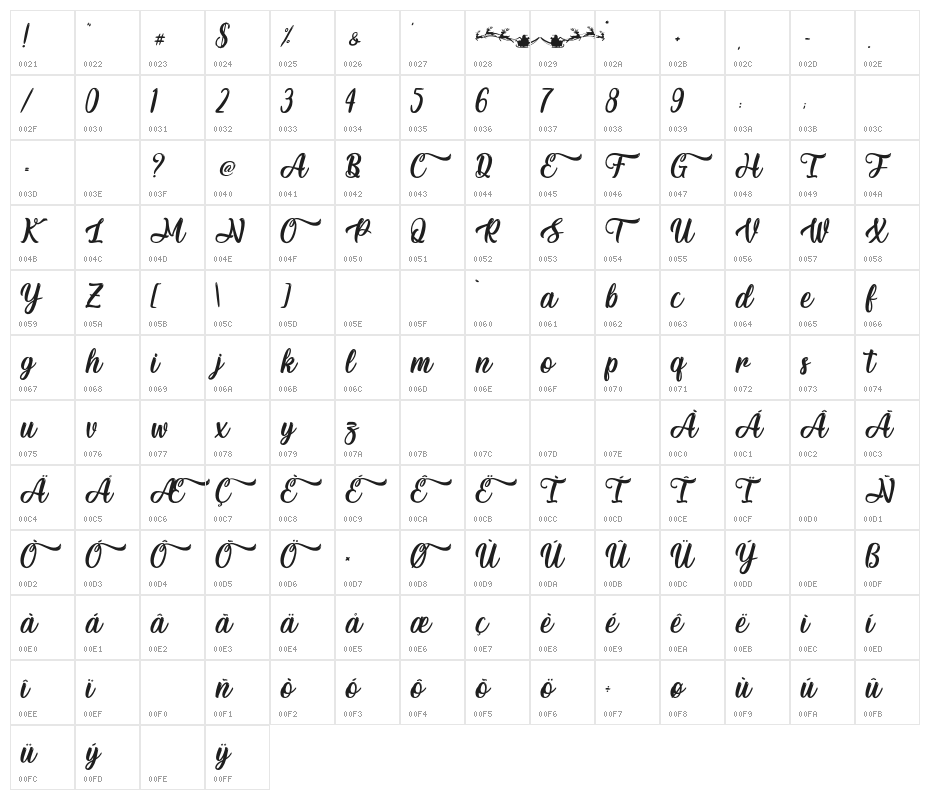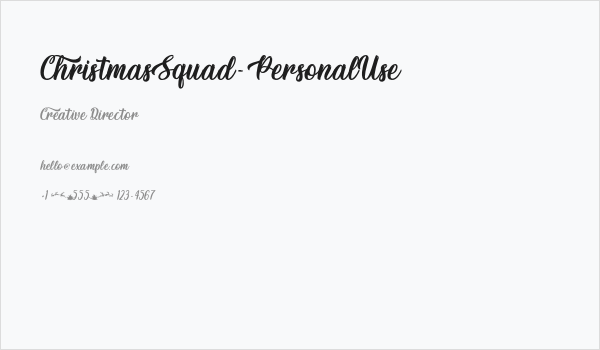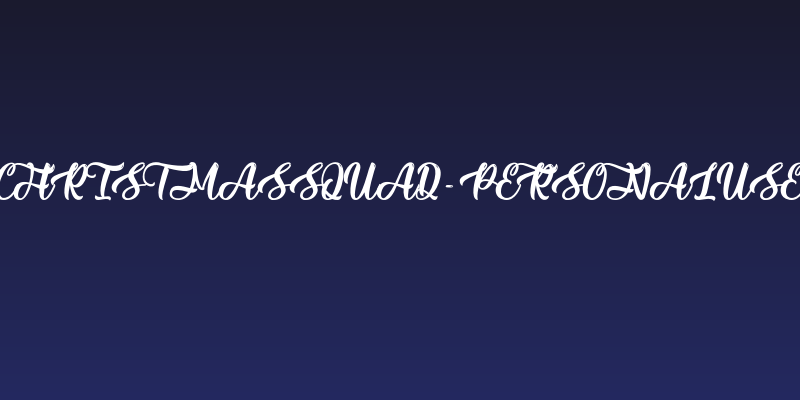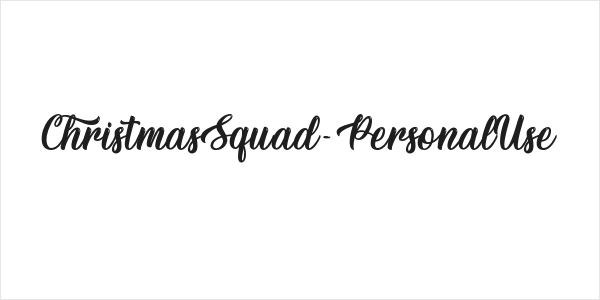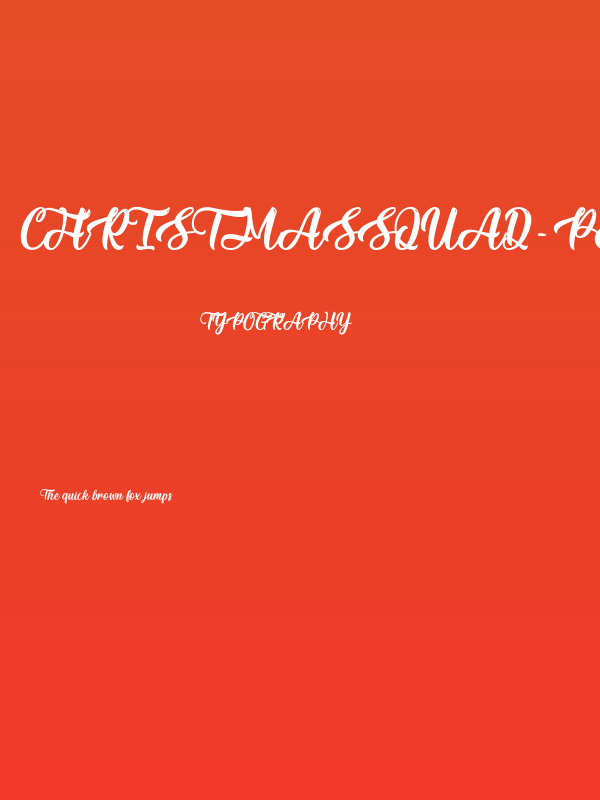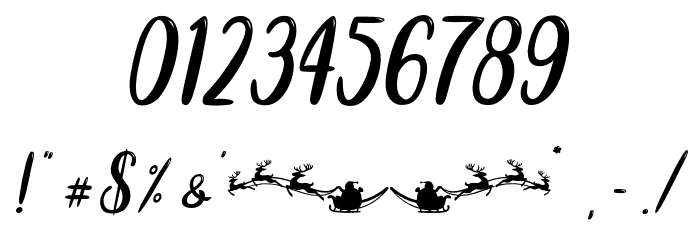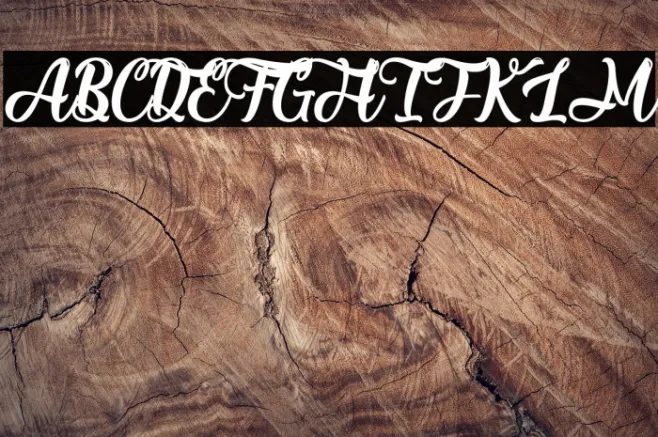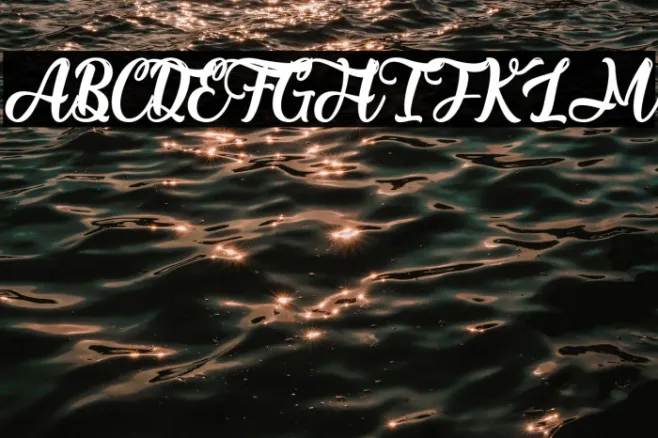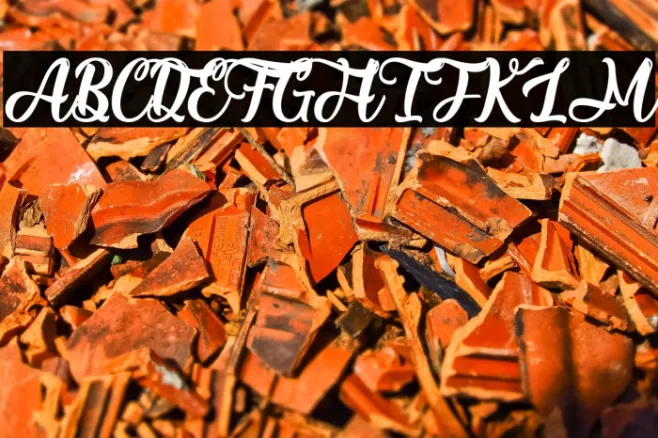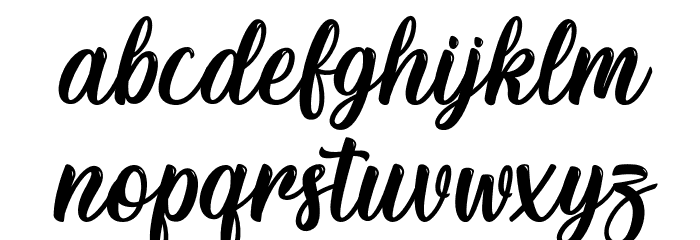
ChristmasSquad-PersonalUse Font
ChristmasSquad-PersonalUse Description
This font features a playful and festive script style, characterized by its flowing, cursive letters that evoke a sense of holiday cheer. The uppercase letters are bold and dynamic, with elegant loops and swirls that add a touch of whimsy. The lowercase letters maintain a consistent style, with smooth curves and a slightly exaggerated slant that enhances the overall festive feel. The numerals are clear and easy to read, while the special characters include charming holiday-themed elements like a sleigh and reindeer, adding a unique decorative touch. The font's design is perfect for capturing the spirit of the season, making it ideal for holiday-themed projects.
| Use Case | Headlines, Logos, Decorative text |
| Proposed Projects | Ideal for holiday cards, festive invitations, seasonal branding, and decorative signage. |